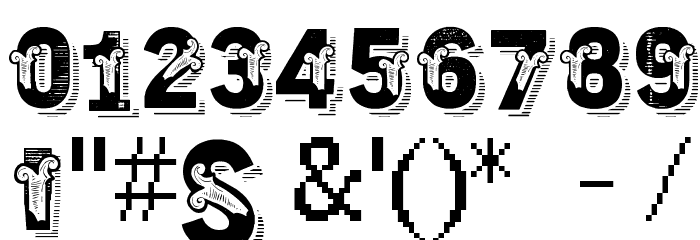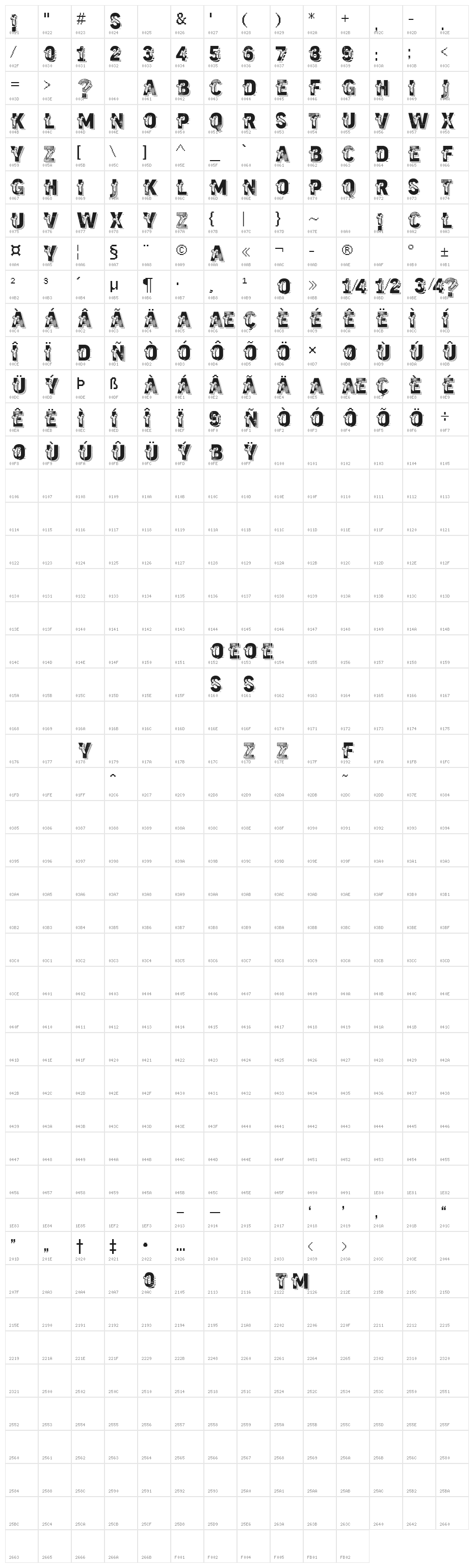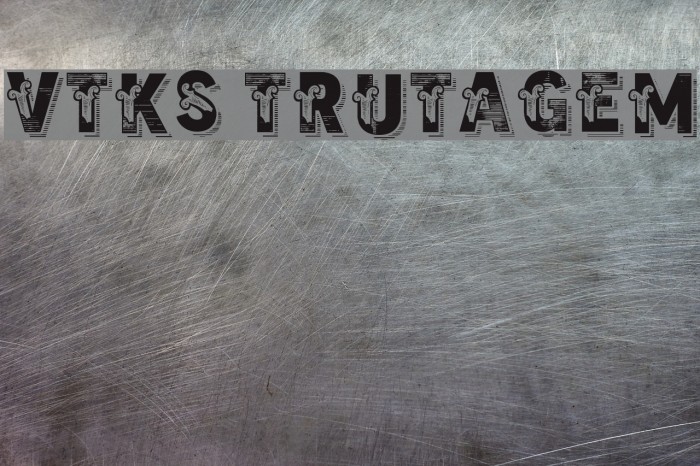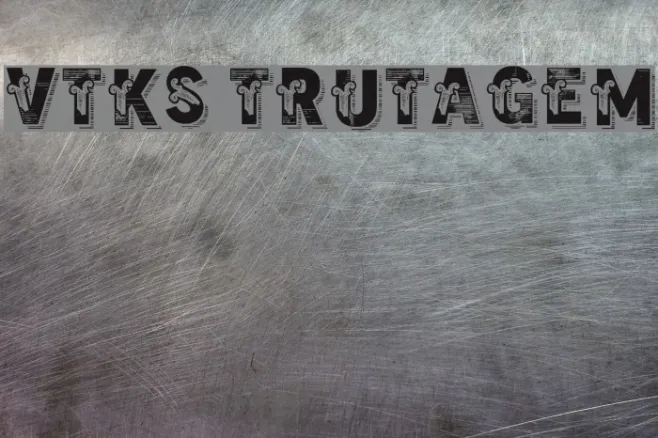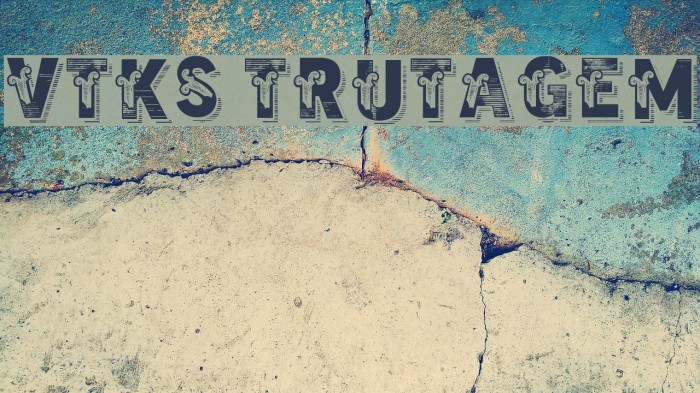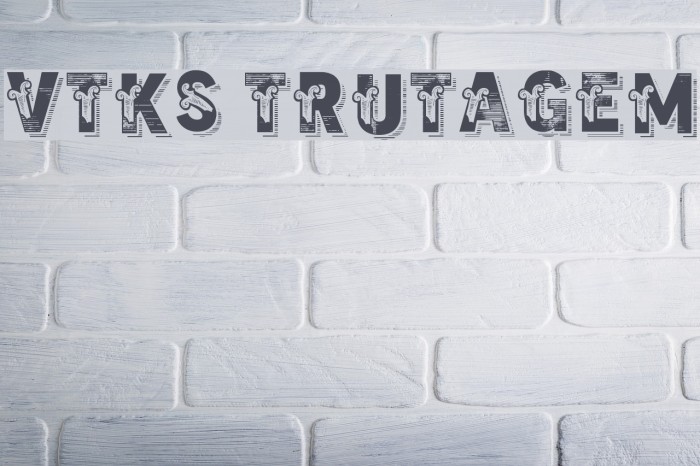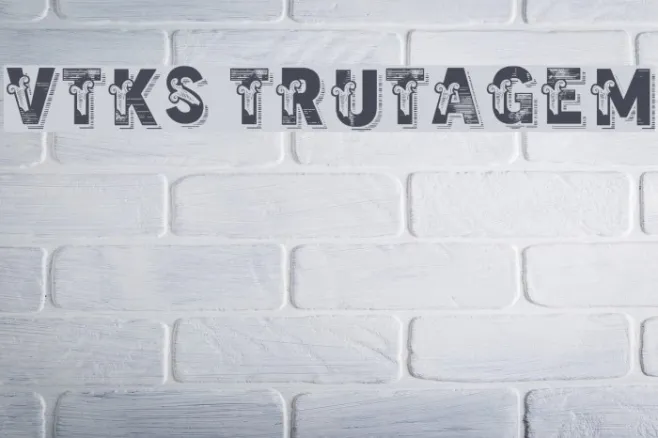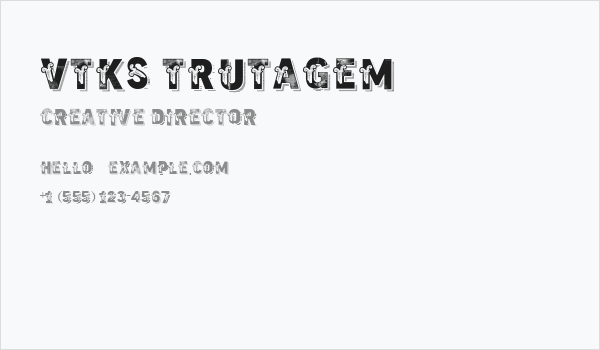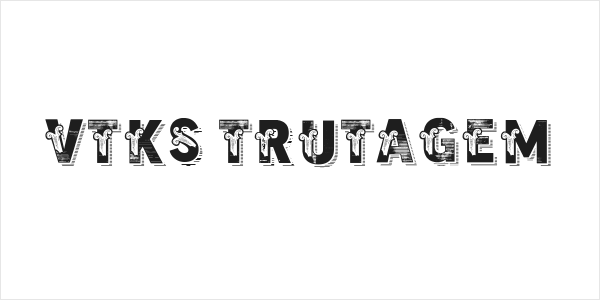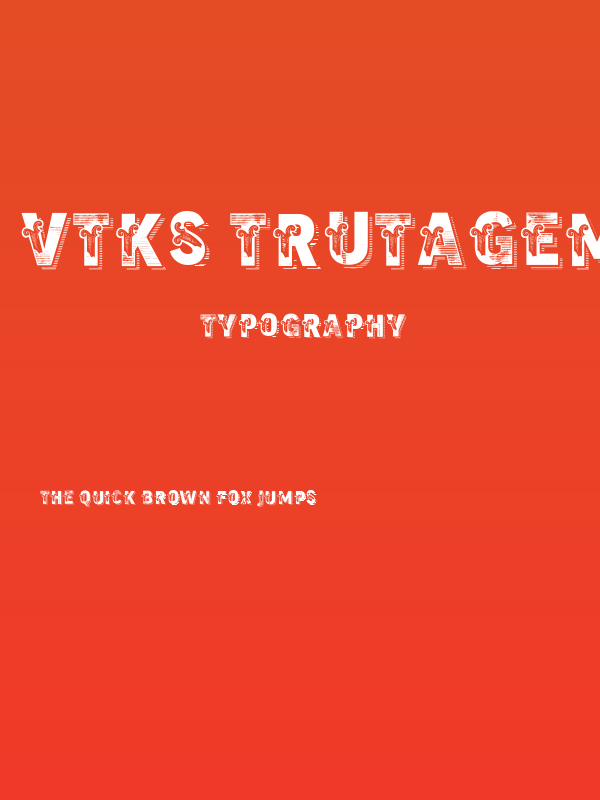
vtks trutagem Font
vtks trutagem Description
This font features a bold and decorative style with intricate detailing that resembles vintage woodcut prints. Each character is adorned with ornate flourishes, giving it a distinct and eye-catching appearance. The letters are bold and have a strong presence, making them suitable for impactful designs. The font combines elements of classic serif styles with decorative embellishments, resulting in a unique and artistic look. The use of shading and lines adds depth and texture, enhancing its visual appeal. This font is ideal for projects that require a touch of elegance and creativity.
| Proposed Projects | Ideal for vintage posters, artistic book covers, branding, and decorative signage. |